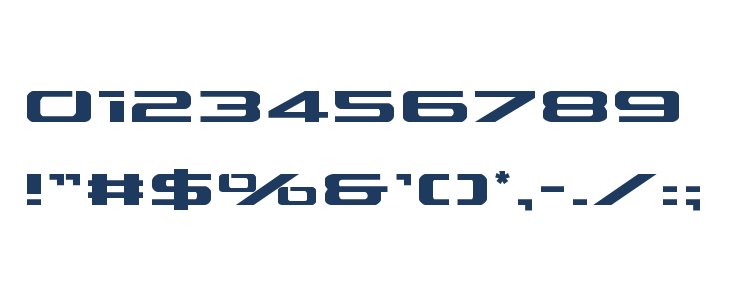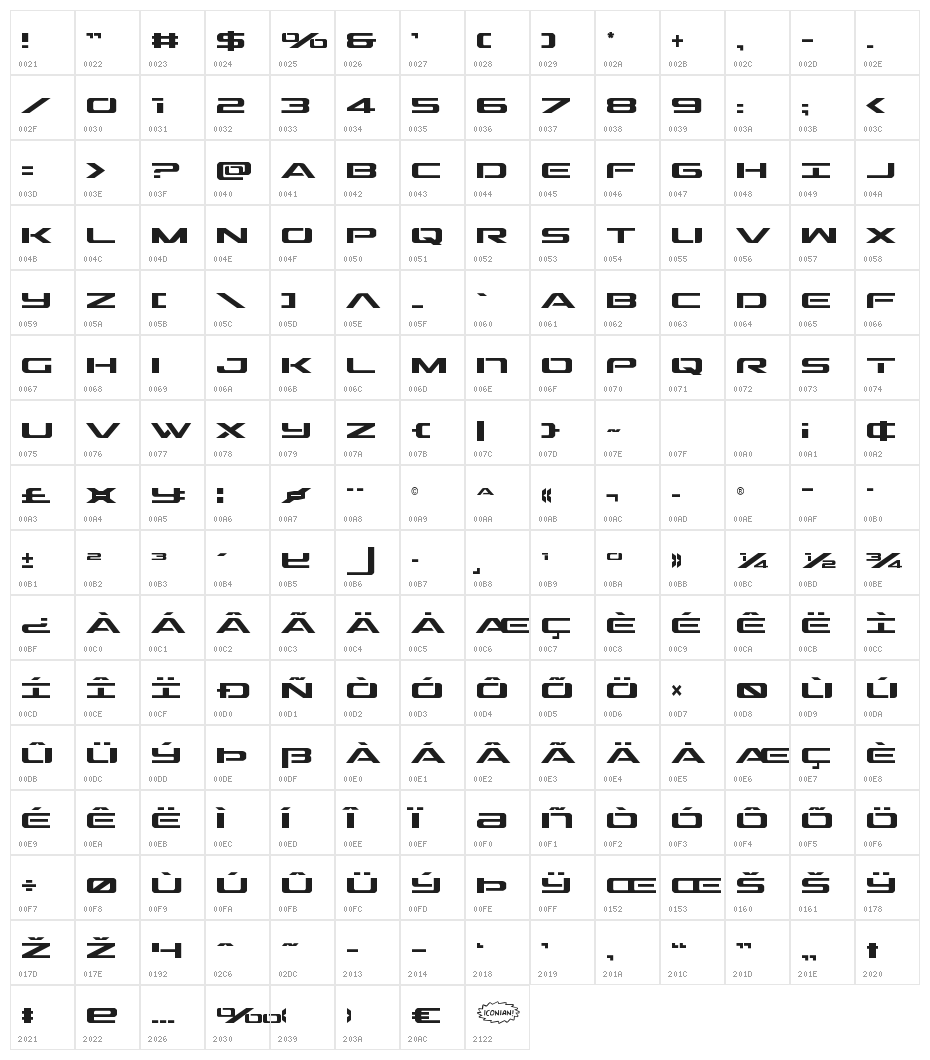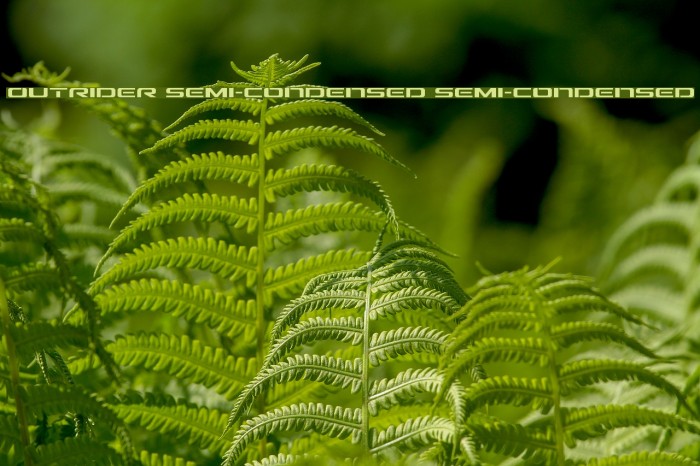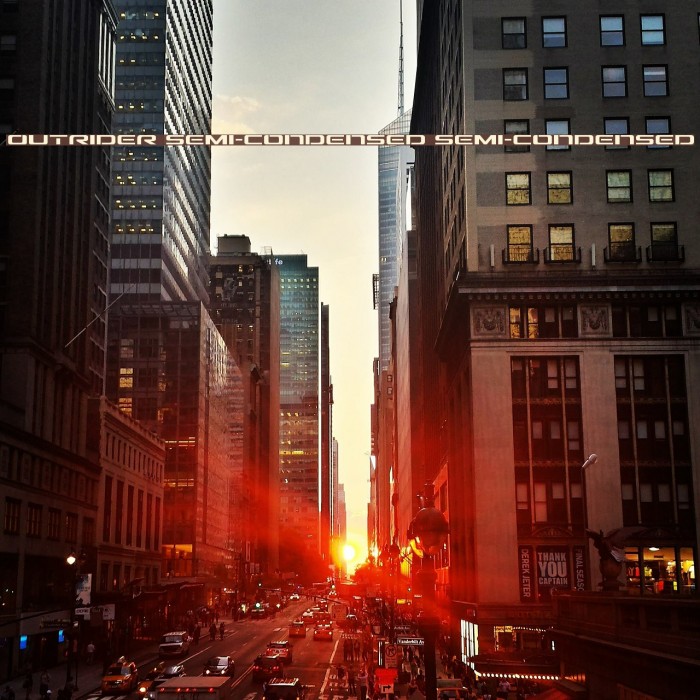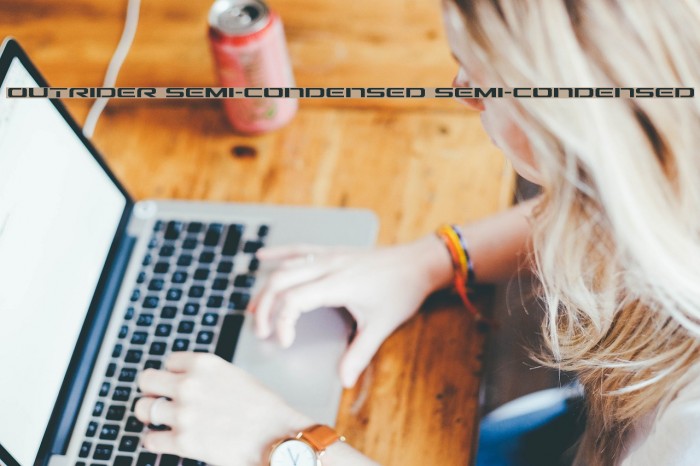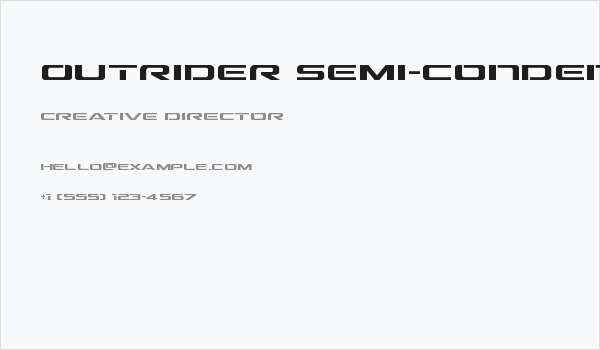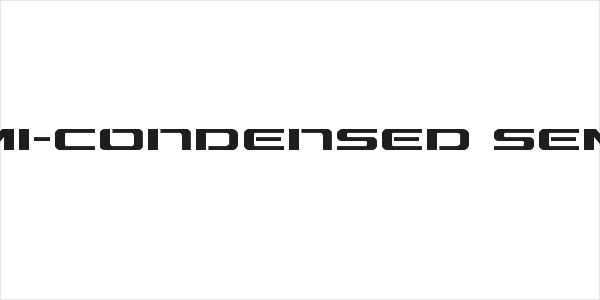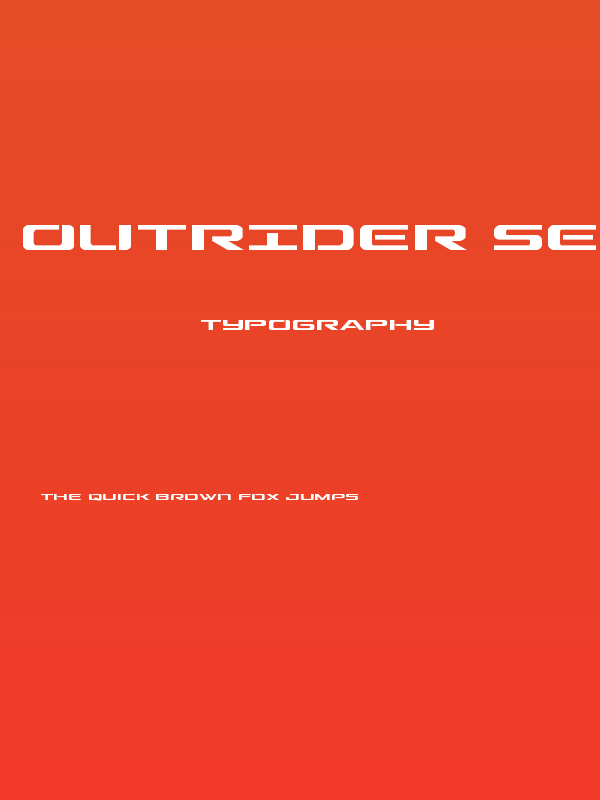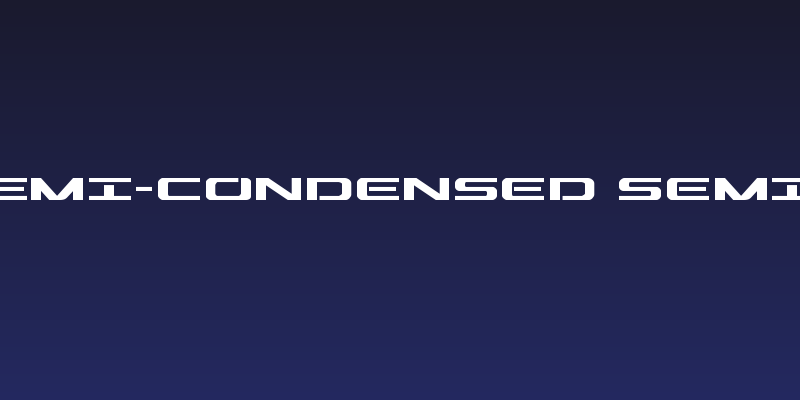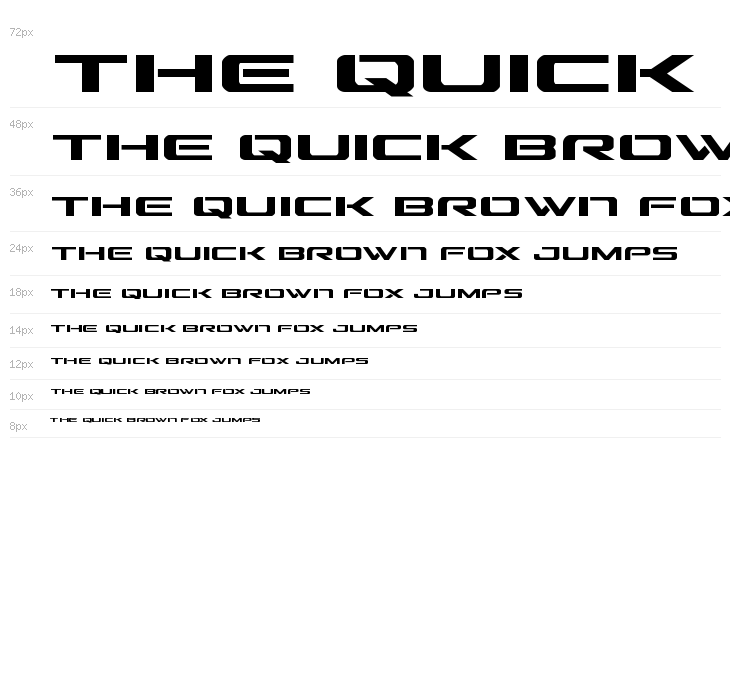
Outrider Semi-Condensed Font
Outrider Semi-Condensed Description
This font features a bold and futuristic design with semi-condensed letterforms. The characters are geometric and angular, providing a modern and sleek appearance. The uppercase letters are consistent in height, while the lowercase letters maintain a similar width, creating a uniform look. The numerals are distinct and align well with the overall style, enhancing readability. Special characters are designed to match the boldness of the alphabet, making them suitable for various applications. The font's unique style makes it ideal for projects that require a contemporary and edgy aesthetic.